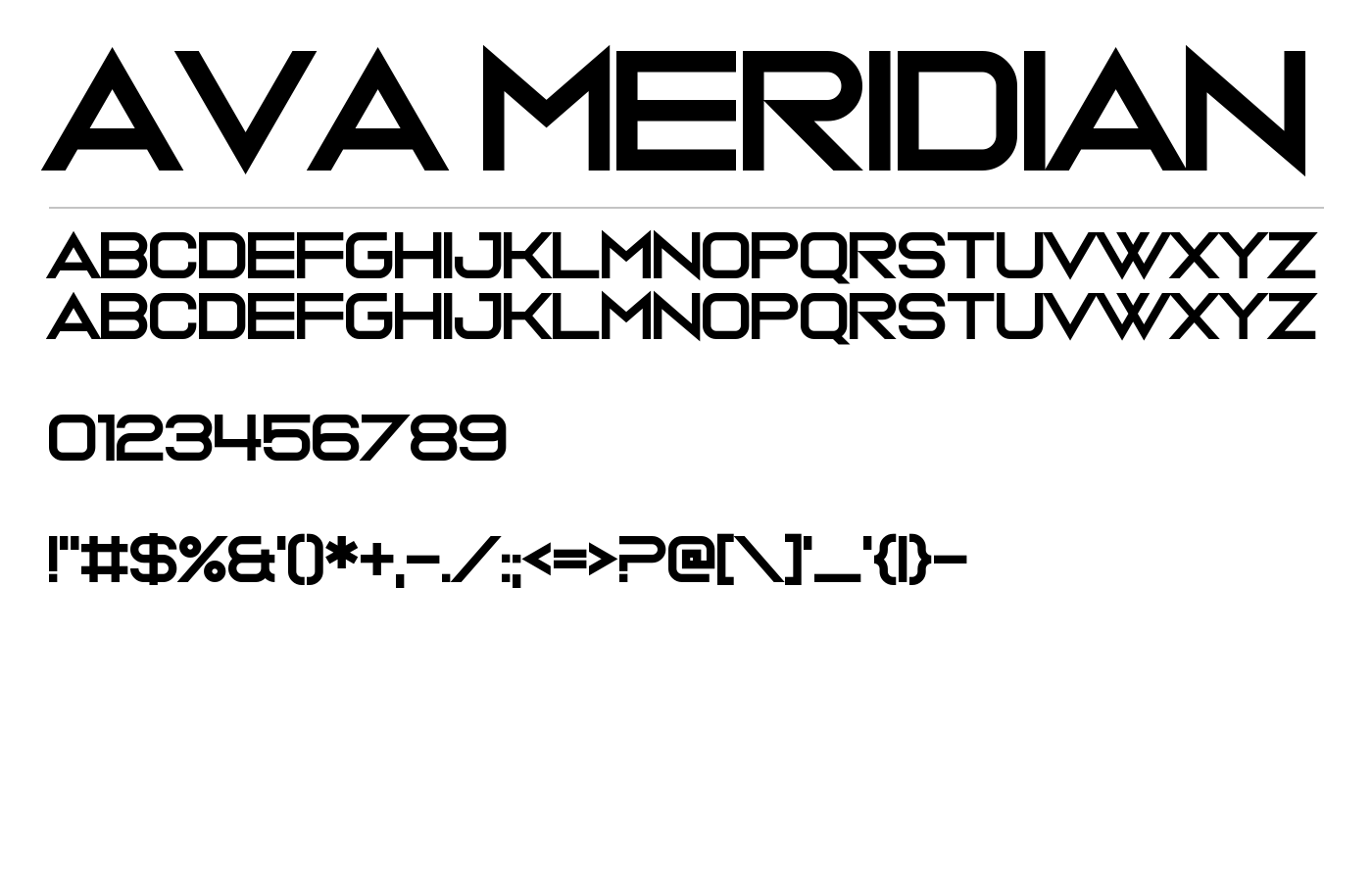
Ava Meridian is a bold, modern sans serif font with a geometric and slightly condensed structure, featuring clean, sharp lines and consistent stroke weights. Its uppercase-only style and distinctive angular details give it a futuristic, tech-inspired look, making it ideal for logos, headlines, and branding that seek a strong, contemporary, and dynamic impression. This font works best where a sleek, modern aesthetic is desired to communicate innovation and confidence.
Ava Meridian Font
About Ava Meridian Font
| Font family | Ava Meridian Font |
| Designer | NAL |